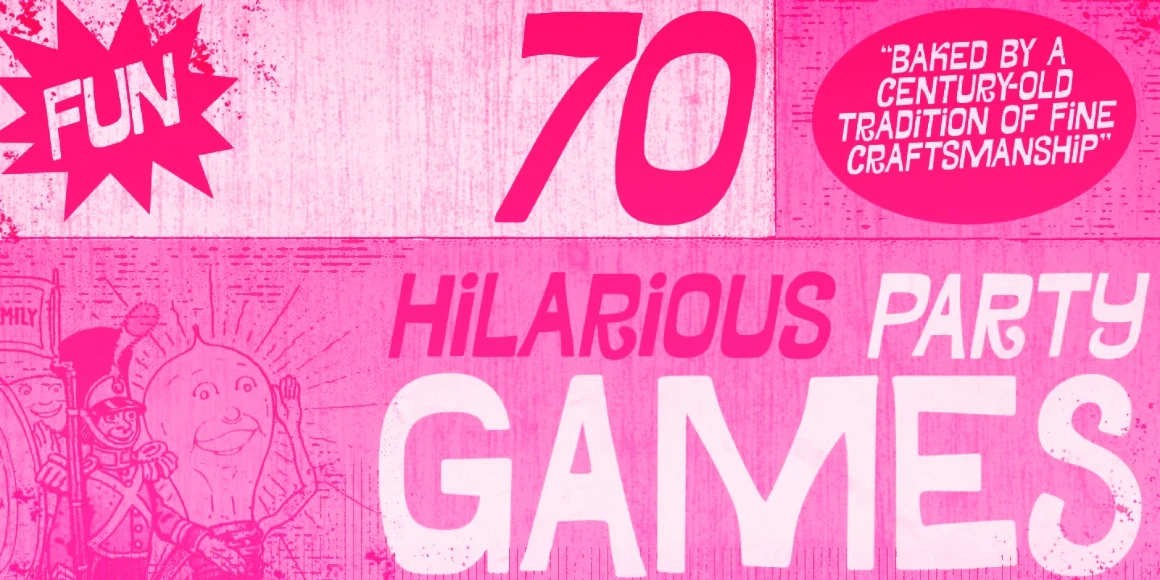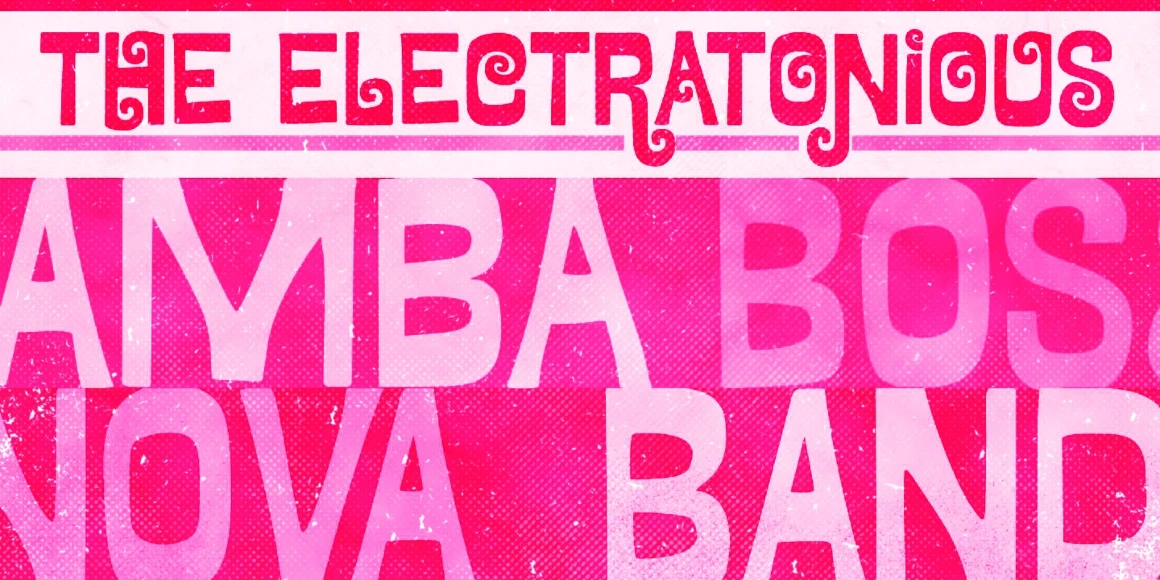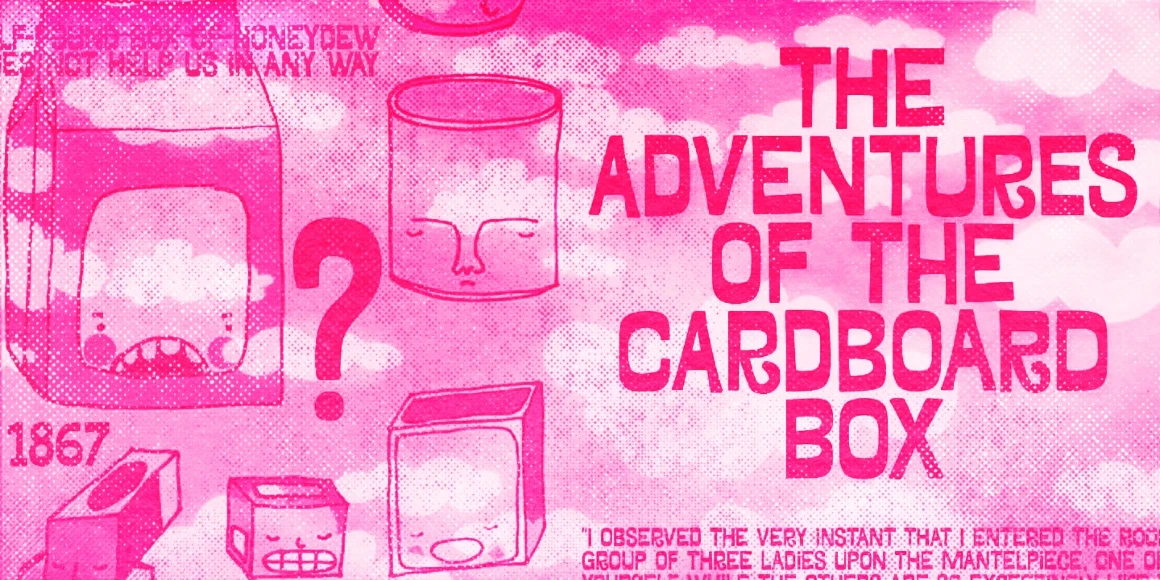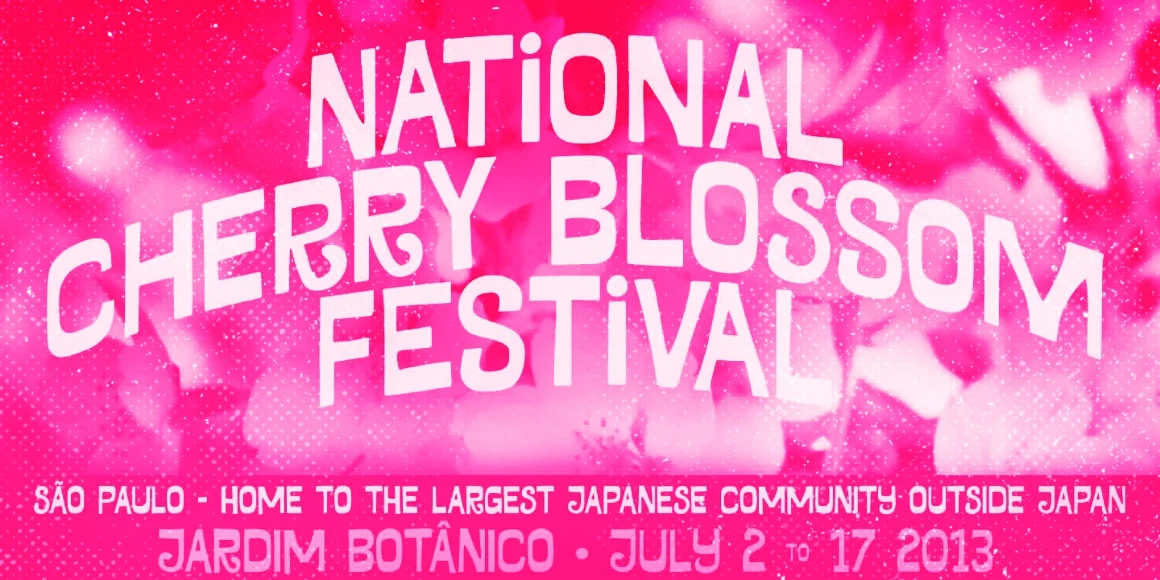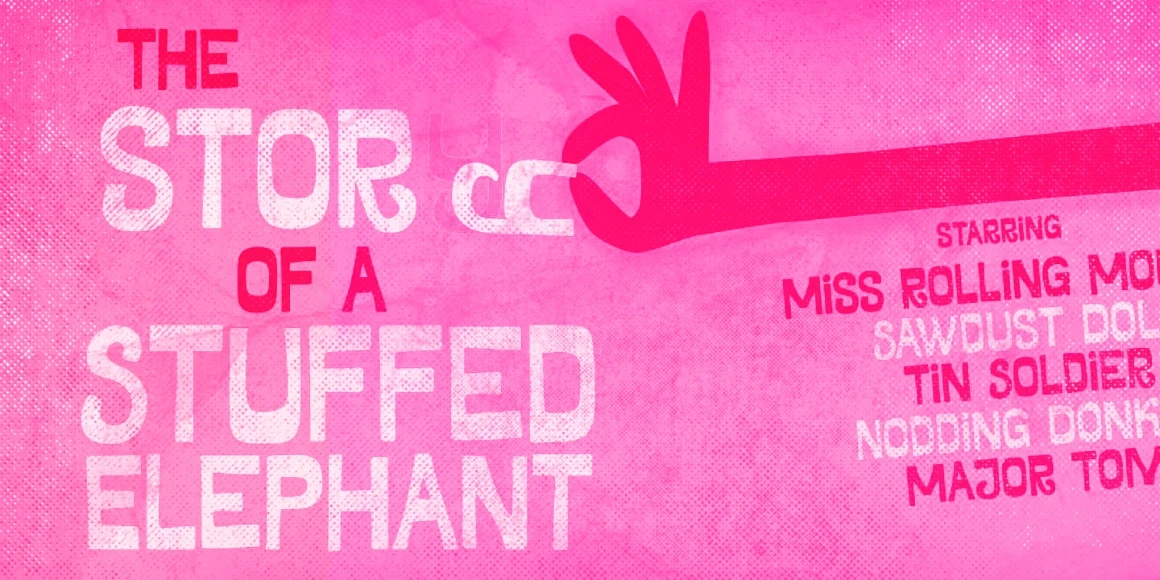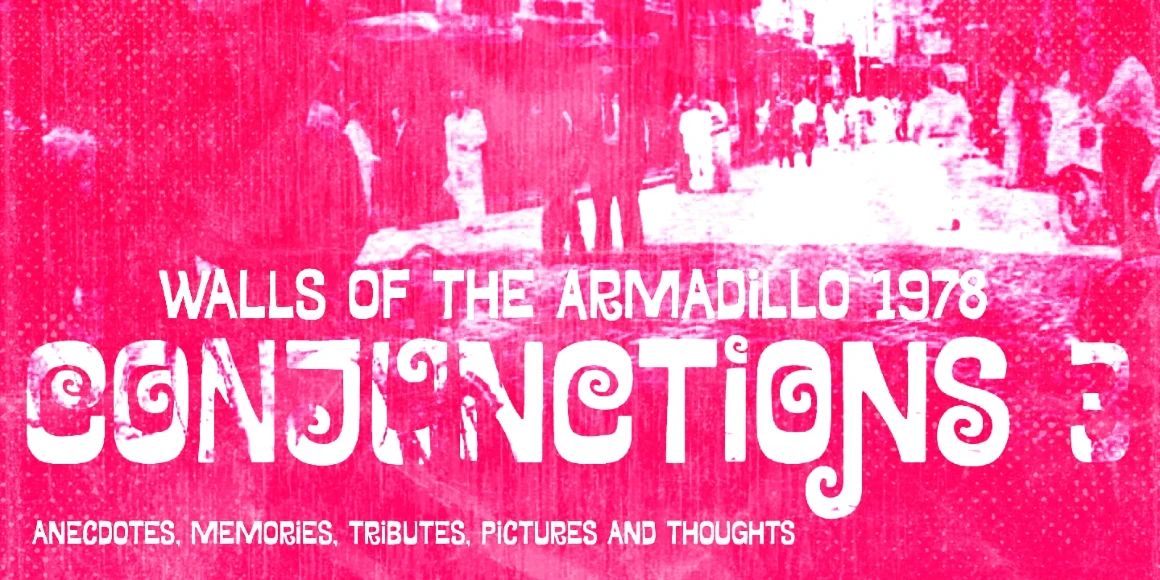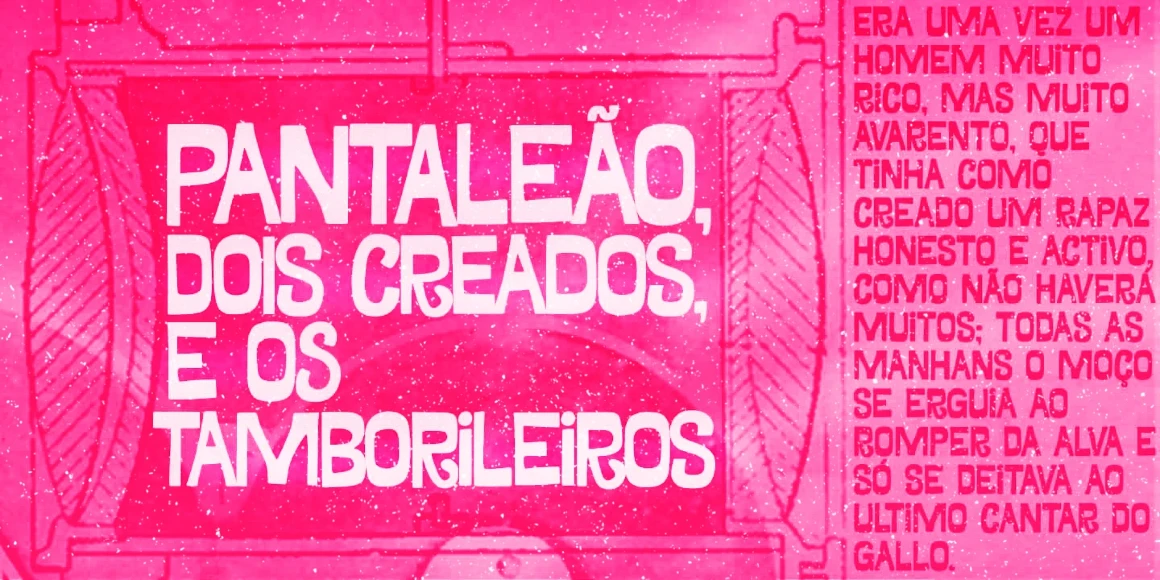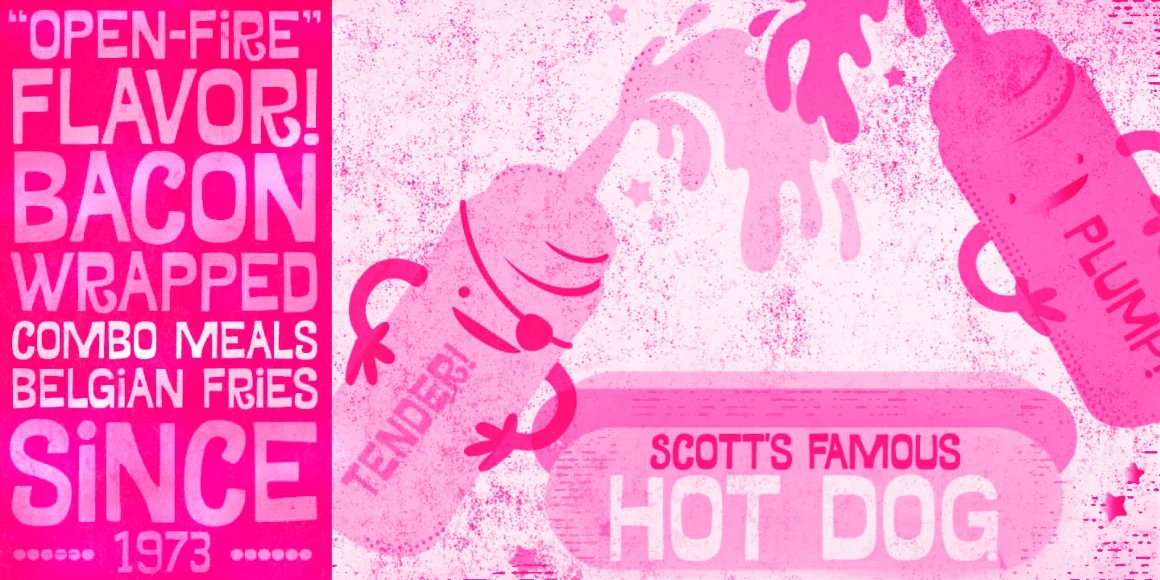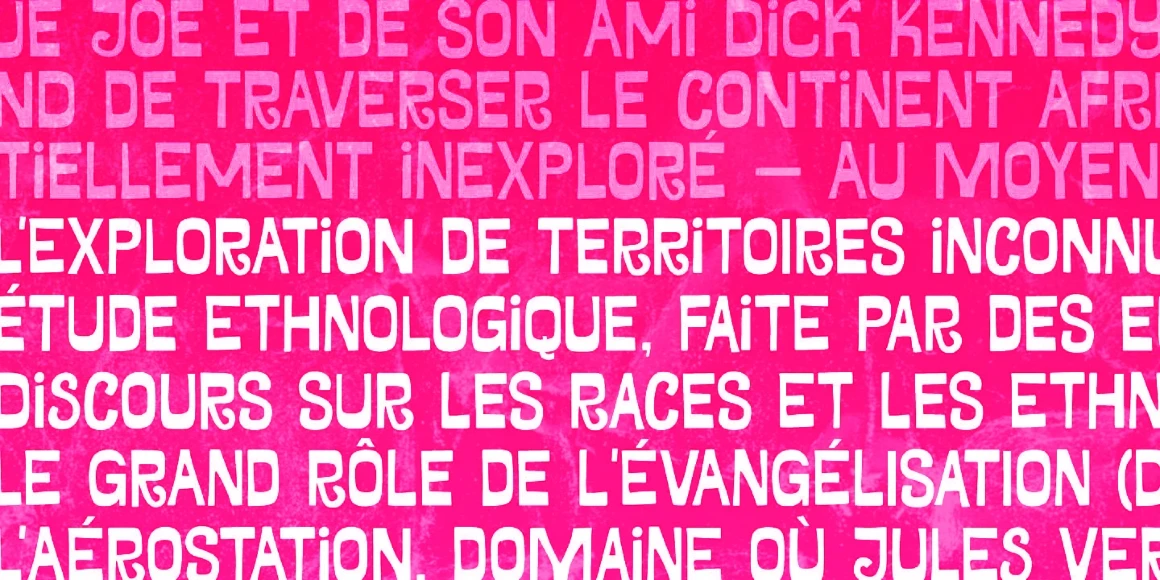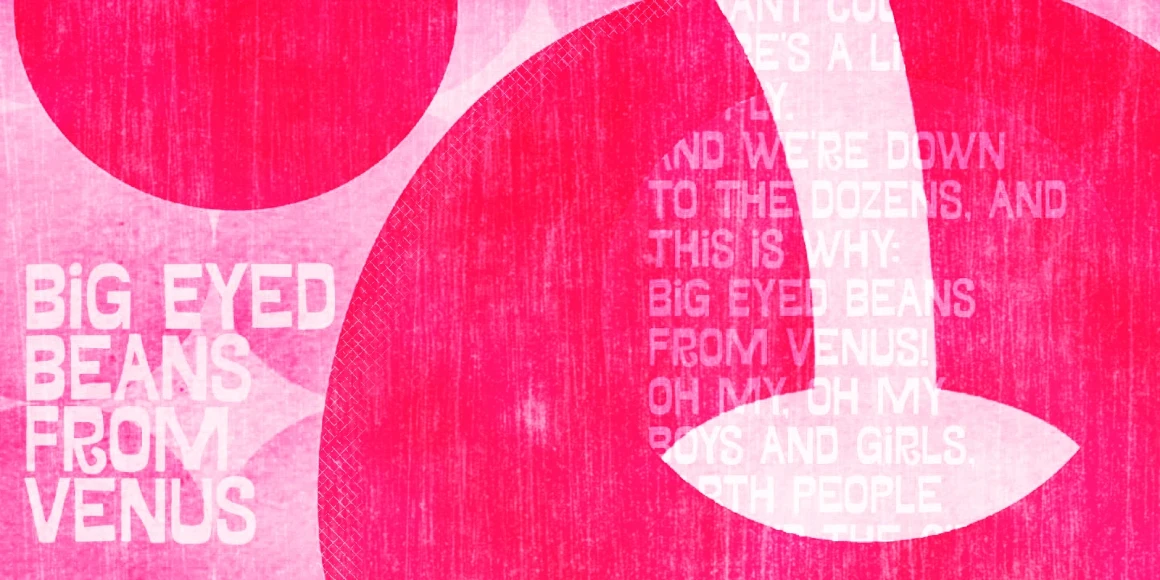
Dranskof
Dranskof Regular
Dranskof is a light-hearted, cheery font. It is inspired by a page from an extraordinary Serbian children’s publication by the writer, poet, and journalist Duško Radović. Dranskof’s whimsical letterforms are full of joie de vivre, consisting of different glyphs in the upper and lower case slots for added flexibility and character. And, if you want to add a literal extra twist here and there, Dranskof is equipped with a spirited set of stylistic alternates, too! This is definitely a ‘feel good’ font. Enjoy!